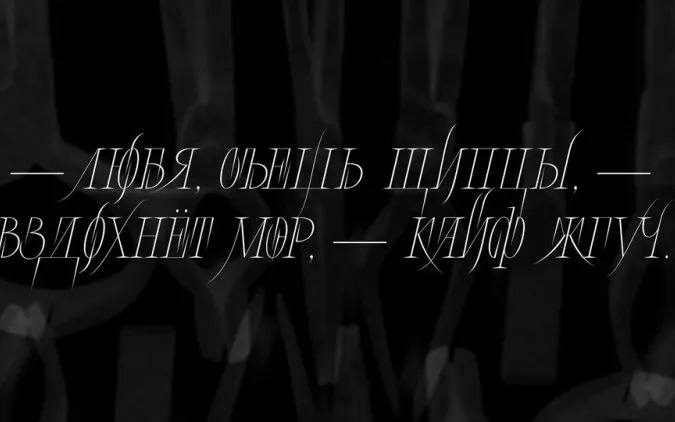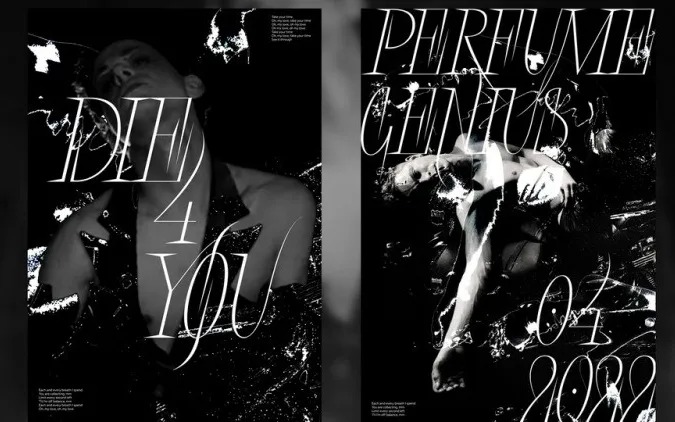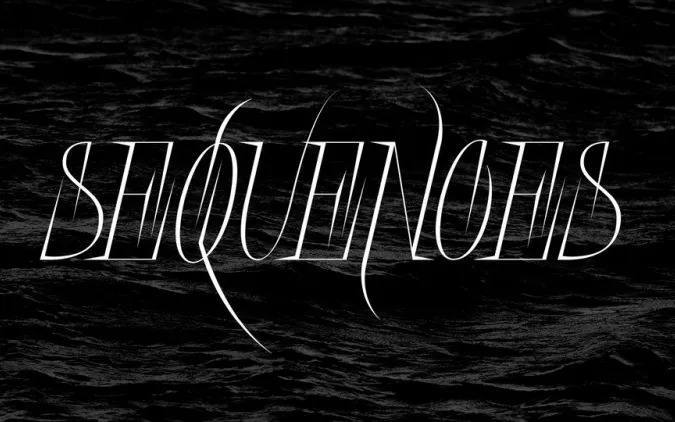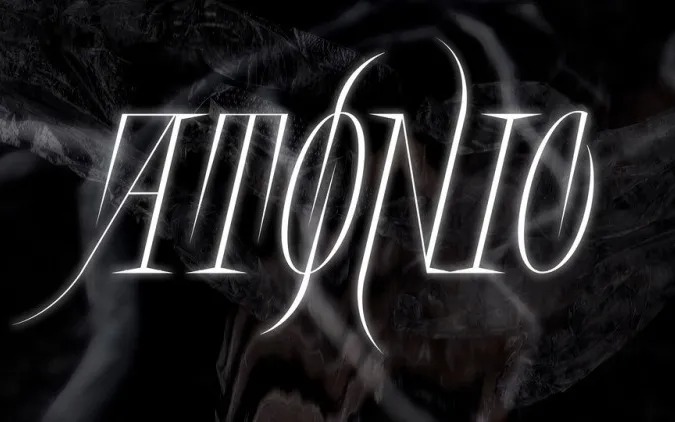
Atonic Display Font
This is a modern elegant display serif typeface crafted & designed by Antonina Samokhina. It’s perfect for branding, logo, packaging, header, title, t-shirt design, poster, band, music, album, etc. Atonic has a special character in some glyphs, you can use that and make your work more splendid.